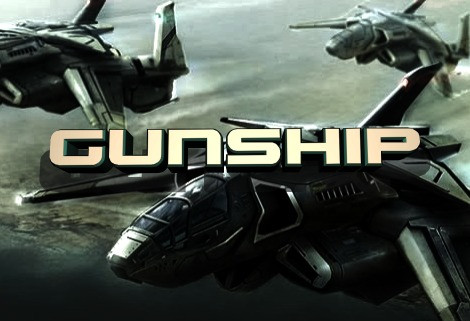
Looking for a unique, stylish, and fun font for your next project? Gunship Display Font is a font style techno by Iconian Fonts.
| Designer Name: | Iconian Fonts |
| Classification: | Display Fonts, Stencil Fonts, Techno / Futuristic Fonts |